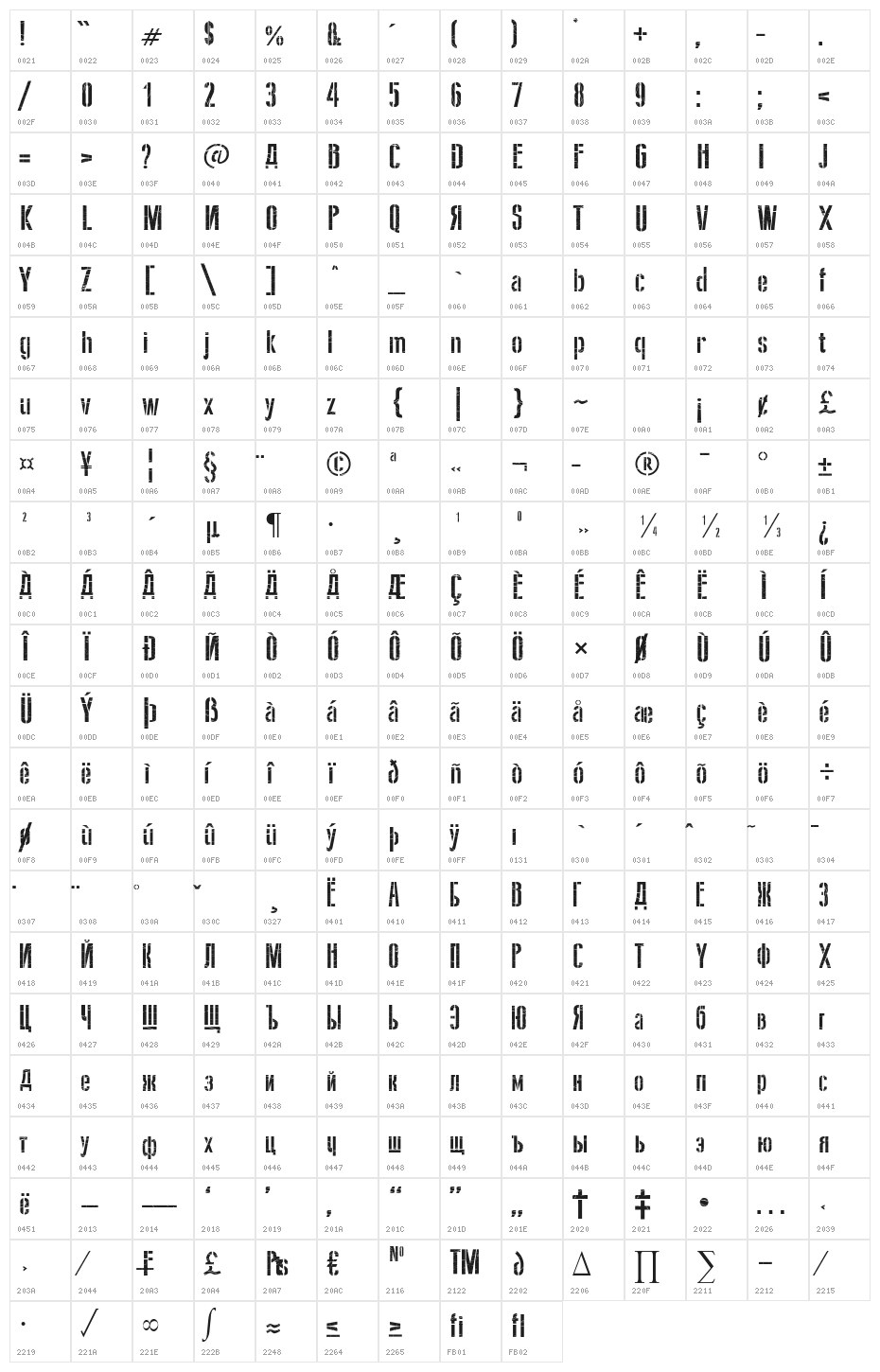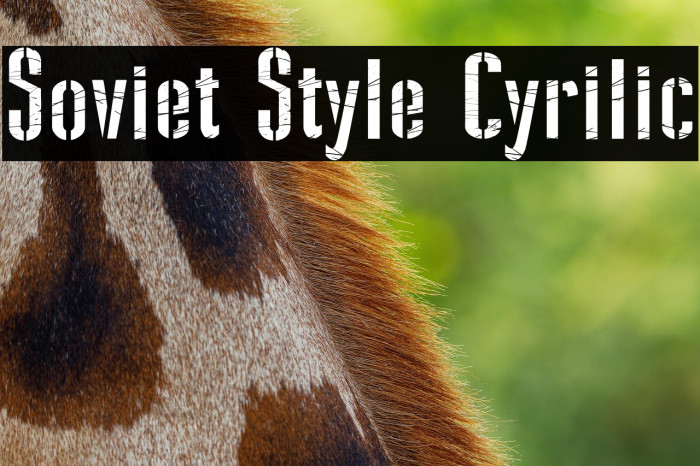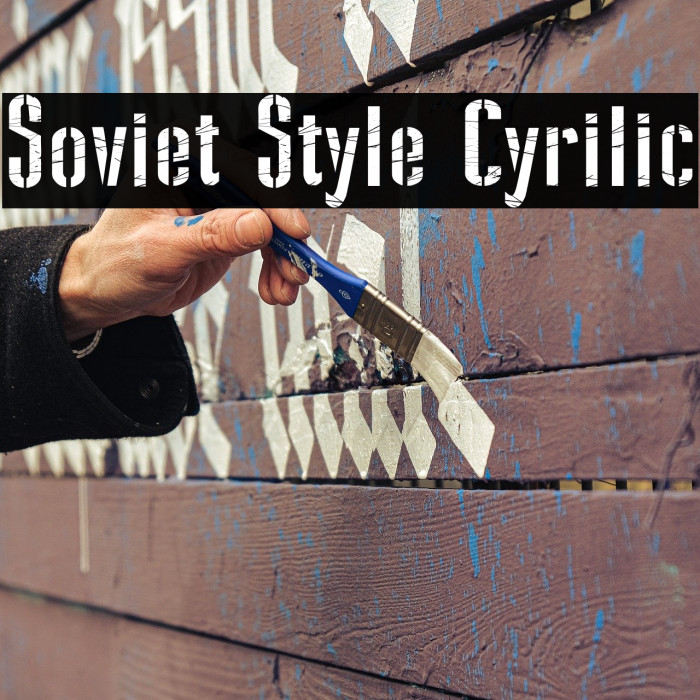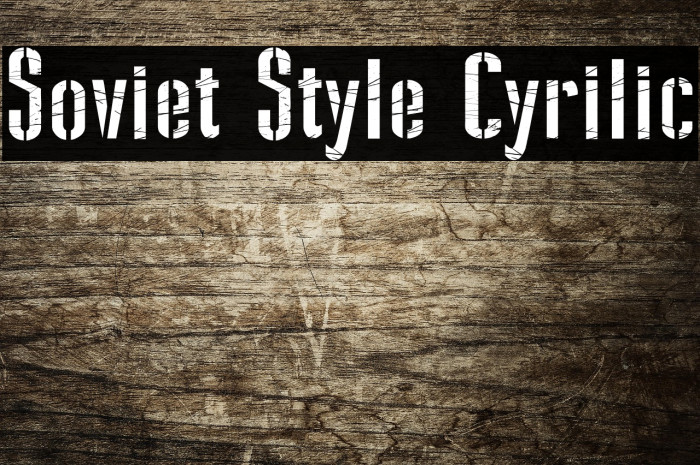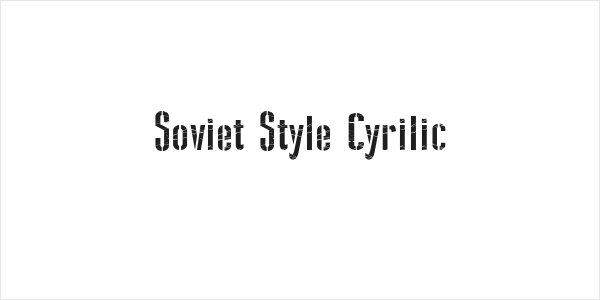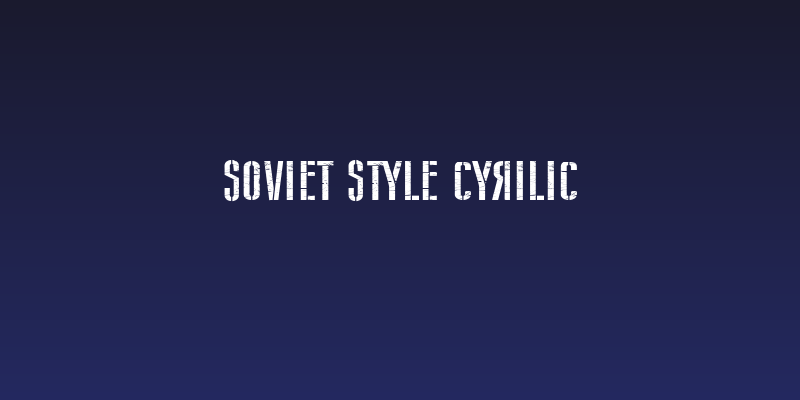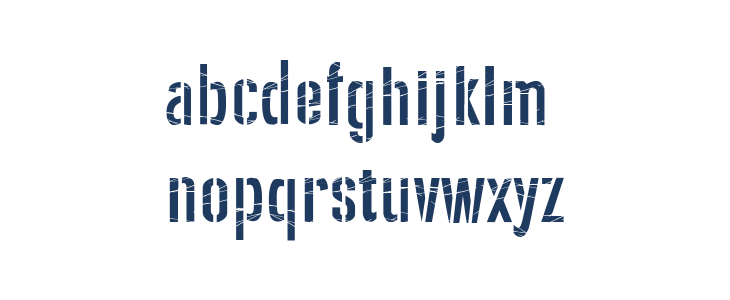
Soviet Style Cyrilic Font
Soviet Style Cyrilic Description
This font features a bold, distressed style reminiscent of Soviet-era design, characterized by its strong, geometric shapes and a weathered texture that gives it a rugged, industrial feel. The uppercase and lowercase letters maintain a consistent width, creating a uniform appearance that is both striking and functional. The numbers and special characters follow the same aesthetic, ensuring cohesion across all elements. This font's unique texture and bold presence make it ideal for projects that require a vintage or historical touch, while its clear legibility ensures it remains practical for various applications.